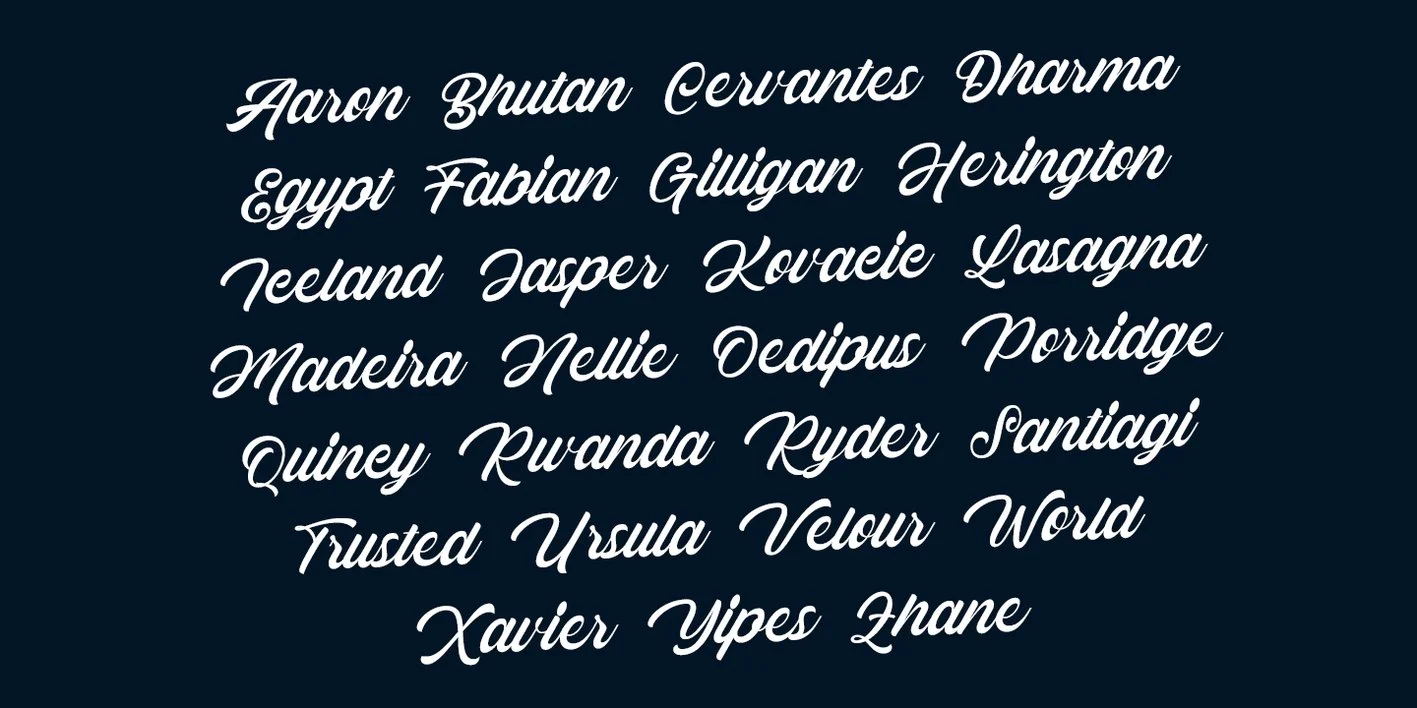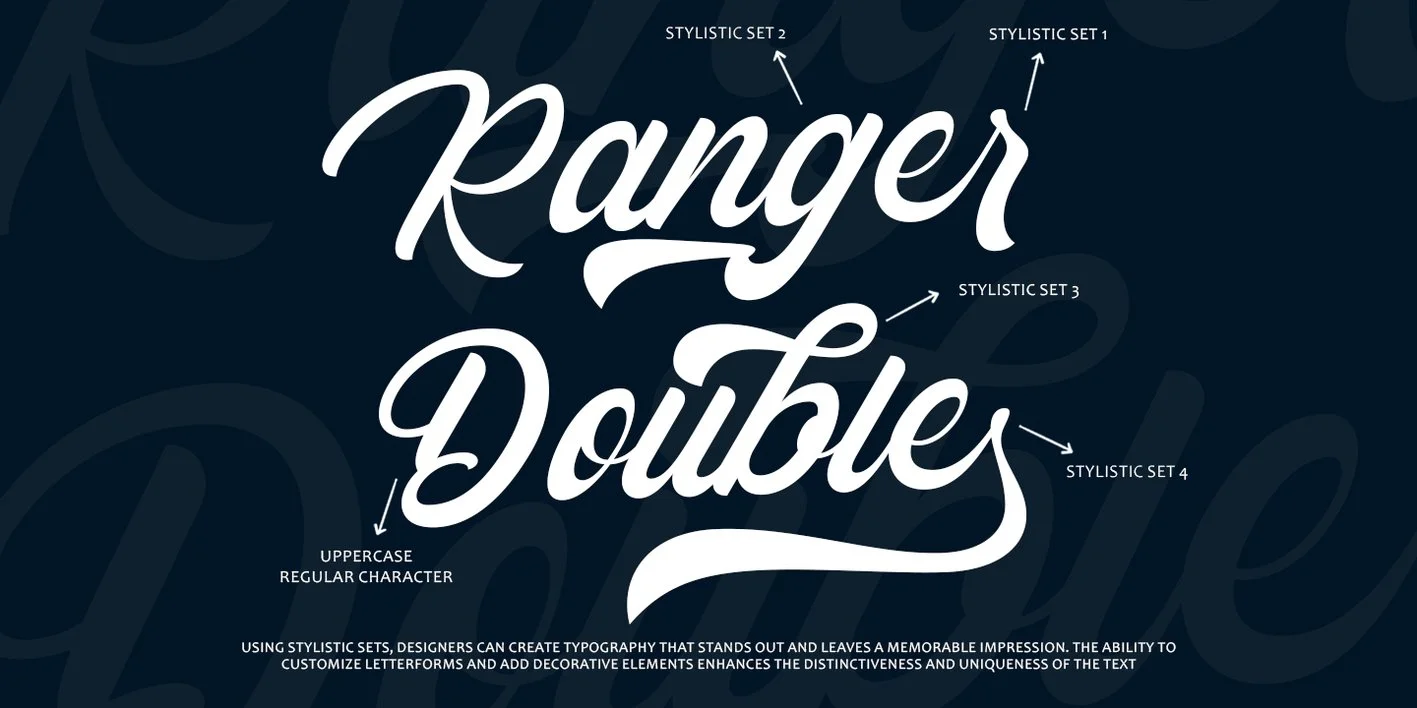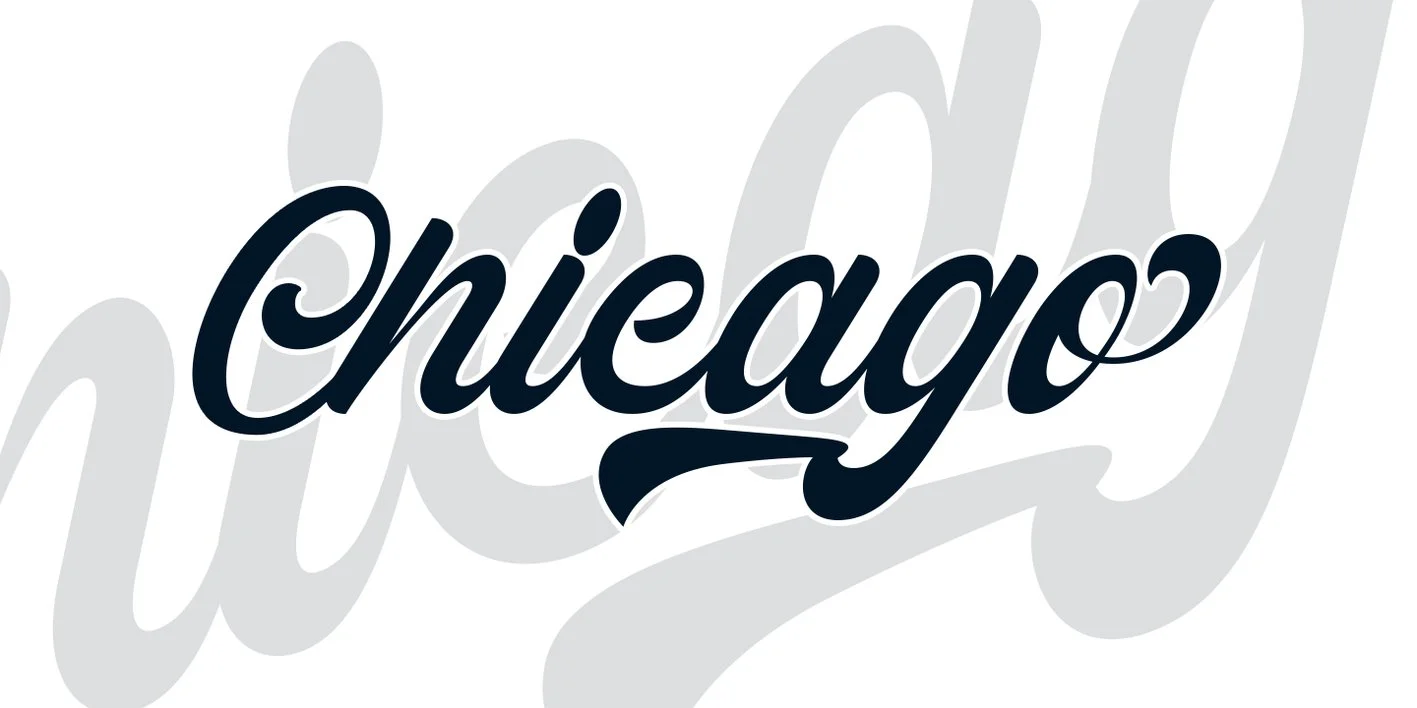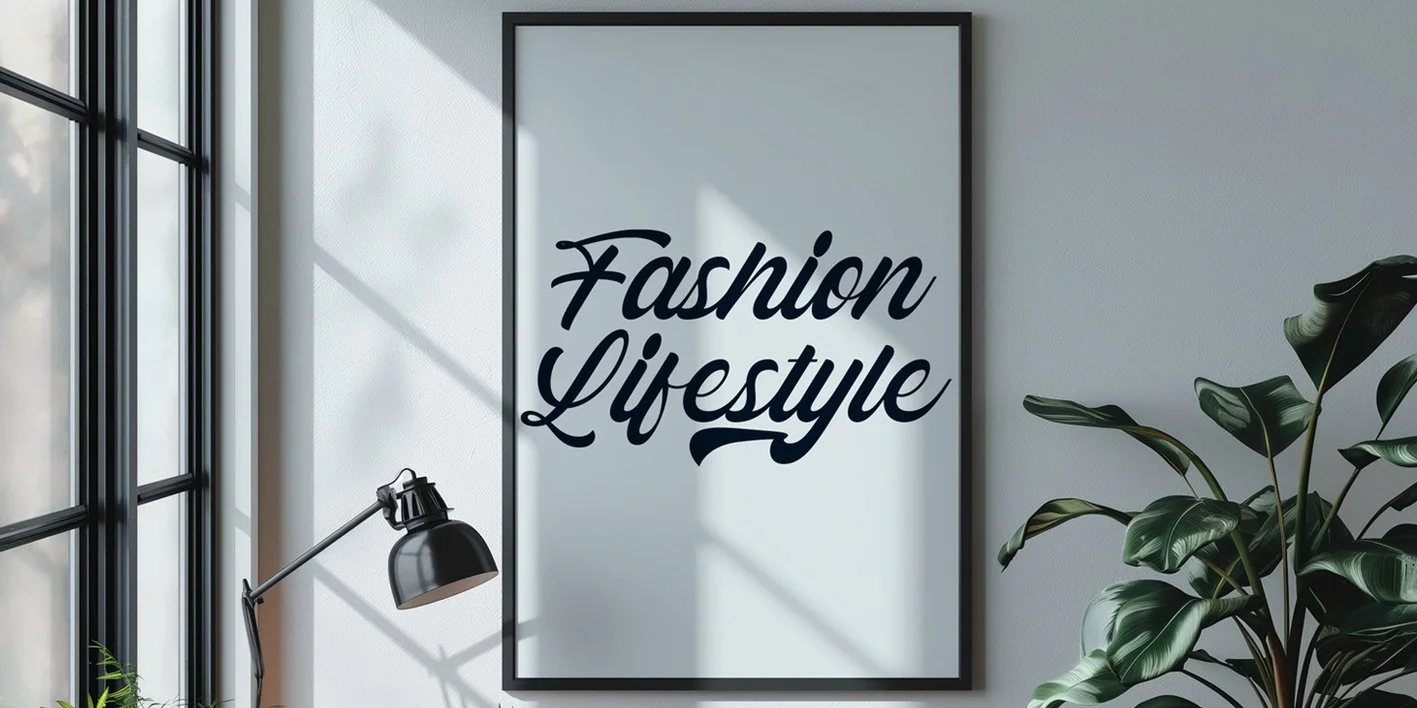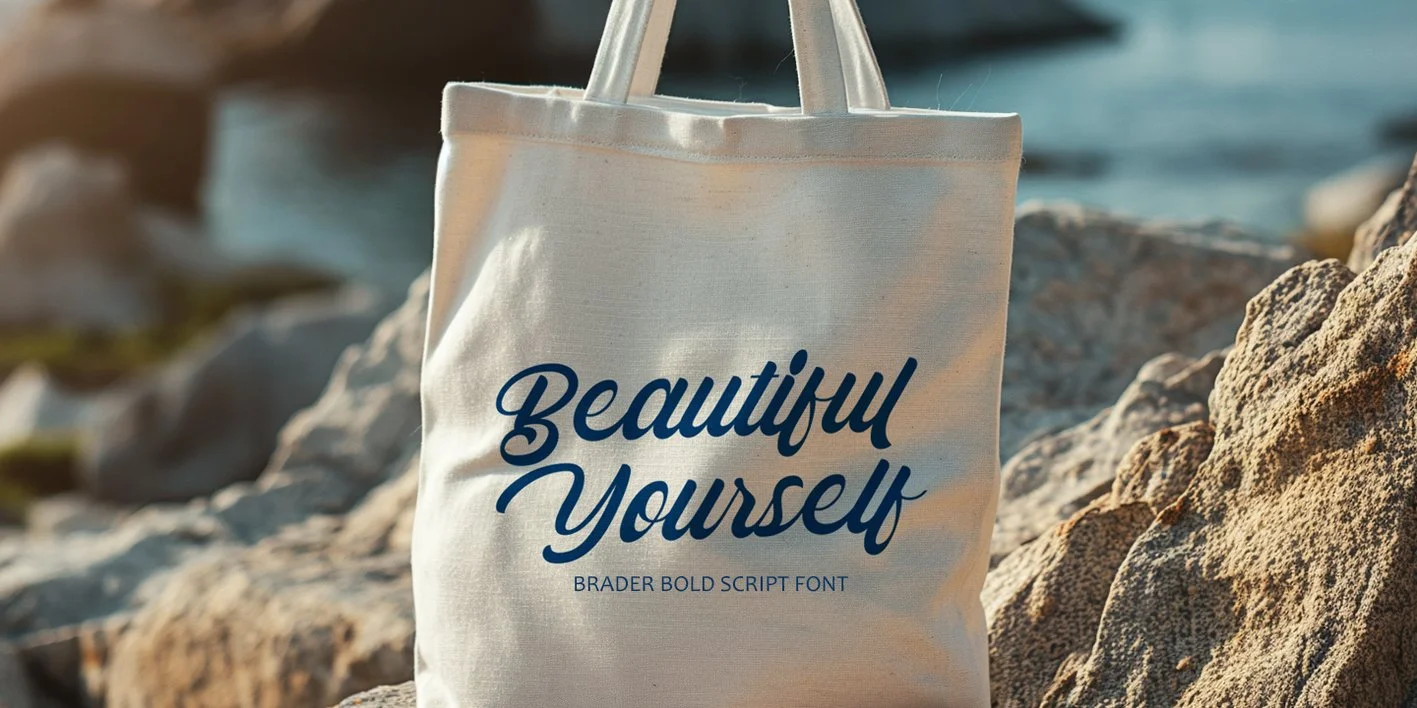
Brader Font
Few typefaces manage to balance refined proportions and careful stroke modulation with genuine day-to-day practicality. Brader is one of them. The typeface brings a versatile sensibility to a broad range of creative disciplines, with controlled contrast that rewards close inspection that holds up whether the work is print-first or screen-first.
In practice, Brader proves particularly effective for signage systems, logo design, poster creation, environmental graphics, brand identity systems. Designers reaching for it find that the type decisions feel resolved rather than laboured — a useful quality when client timelines are tight.
The range of applications extends to advertising campaigns, packaging design, web design, annual reports. That breadth is deliberate: the proportions and spacing were stress-tested across a wide range of mock briefs before the typeface was finalised.
Independent studios handling packaging and editorial work find Brader a reliable choice for projects that demand both personality and restraint. The design avoids the self-conscious quirkiness that dates quickly, settling instead for considered distinctiveness that holds up over time.